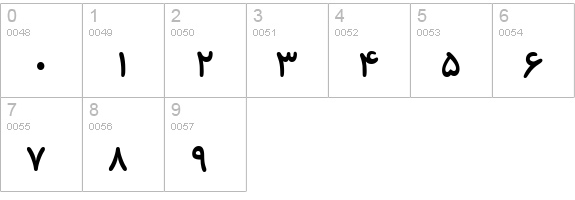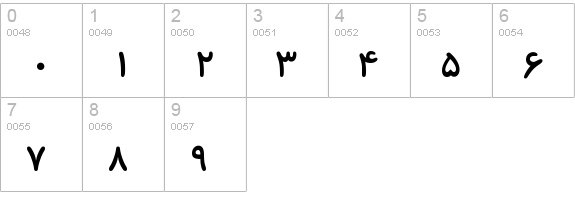
B Koodak Bold Font Details
B Koodak Bold is a strong, high-contrast variant in the B typeface family \xE2\x80\x94 well suited to headlines, attention-grabbing titles, and strong calls-to-action.